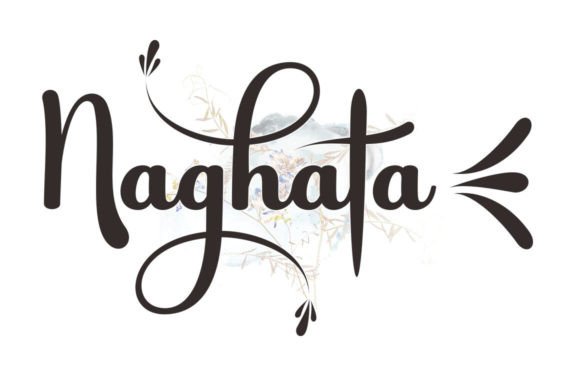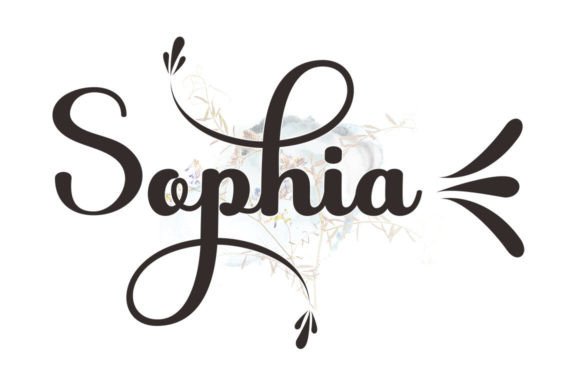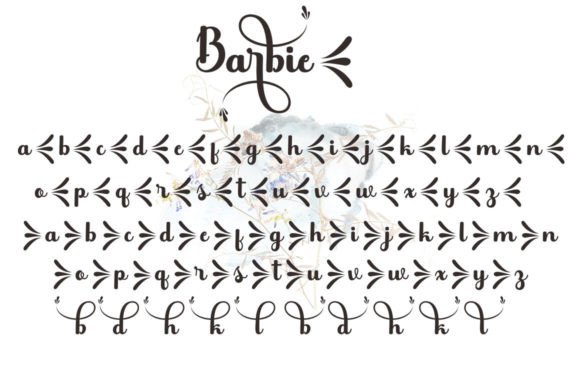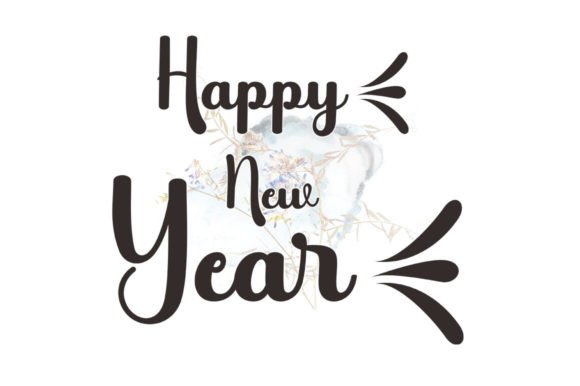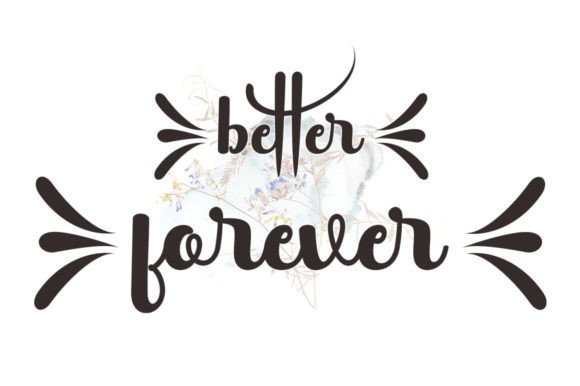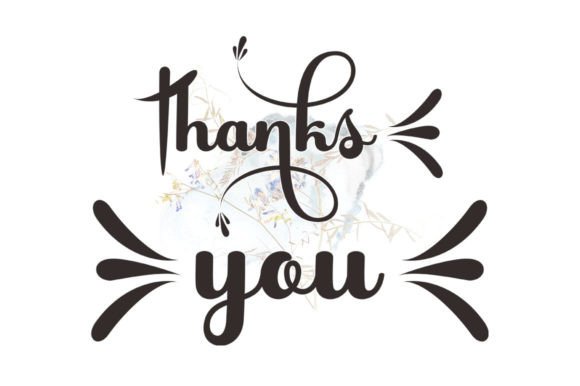
Have you ever been in the midst of a creative project, and suddenly, you just can’t seem to find the right font to bring your vision to life? Maybe you’re working on a wedding invitation, a birthday card, or even a logo for a new business, and nothing seems quite right? That’s when inspiration strikes, and you remember the sweet, cursive handwritten font that’s been hiding in your font library all along – the Barbie Font.
This gorgeous font is more than just a pretty face; it’s a versatile tool that can add a joyful and romantic touch to any design project. Whether you’re a seasoned designer or a hobbyist, the Barbie Font is sure to become your new go-to choice for projects that need a little extra whimsy and charm.
Key Features of Barbie Font
- Unique Characteristics: The Barbie Font features a distinctive, playful, and cursive style, making it suitable for use in children’s products, fashion, and entertainment branding.
- Kerning and Ligatures: The font includes advanced kerning and ligature features, ensuring smooth and aesthetically pleasing typography.
Barbie Font Review
First impressions of the Barbie Font are playful and fun, perfect for projects that need a youthful touch ✨. The font is inspired by the iconic Barbie brand and its nostalgic charm is evident in its design. It’s a great choice for designs that need a retro or vintage vibe.
The font is available in various weights and styles, making it versatile for different design applications. It’s also highly legible, even at smaller font sizes ✨. The font’s rounded edges and smooth curves give it a soft, feminine touch that’s perfect for feminine brands or designs.
While the Barbie Font is a great choice for certain projects, it may not be the best option for designs that require a more professional or modern look ⚠️. The font’s playful nature may come across as childish or immature in some contexts. Additionally, the font’s limited range of styles and weights may limit its usability in certain design applications ⚠️.
Overall, the Barbie Font is a fun and playful addition to any designer’s toolkit. While it may have its limitations, it’s a great choice for projects that need a youthful or vintage touch ✨. With its high legibility and versatility, it’s a great option for designers looking to add some personality to their designs.
- Playful and fun design ✨
- Highly legible, even at smaller font sizes ✨
- Available in various weights and styles
- Limited range of styles and weights ⚠️
- May not be suitable for professional or modern designs ⚠️
Practical Application Guide for “Barbie Font”
For the best results, use the “Barbie Font” in bold or italic styles to add emphasis.
Use the “Barbie Font” to create eye-catching headlines or titles.
Use the “Barbie Font” to create colorful and playful presentations or documents.
The “Barbie Font” is perfect for:
1. Children’s party invitations and decorations.
2. Fashion and beauty branding.
3. Playful and colorful marketing materials.
Remember to use the “Barbie Font” in moderation to avoid overwhelming your design.
Alternatives to “Barbie Font” for Designers
Comic Sans MS is a casual, cursive font that was designed to resemble handwriting. It’s often used for informal designs, children’s materials, and websites that require a friendly tone. However, it’s not as widely accepted as other fonts due to its overuse and misuse. It’s a good alternative to Barbie Font when you need a playful, casual feel, but use it sparingly to avoid clichés.
Comparison: While Barbie Font is a more stylized, exaggerated font, Comic Sans MS has a more natural, handwritten feel. Use Comic Sans MS when you want a more subtle, approachable tone.
Q: Are there any variations or similar fonts to the Barbie Font?
Yes, there are several variations and similar fonts to the Barbie Font. Some popular alternatives include Comic Sans, Papyrus, and Great Vibes. However, the Barbie Font has a unique style and feel that sets it apart from other fonts. If you’re looking for a similar font, consider exploring other sans-serif display fonts with a playful and elegant feel.